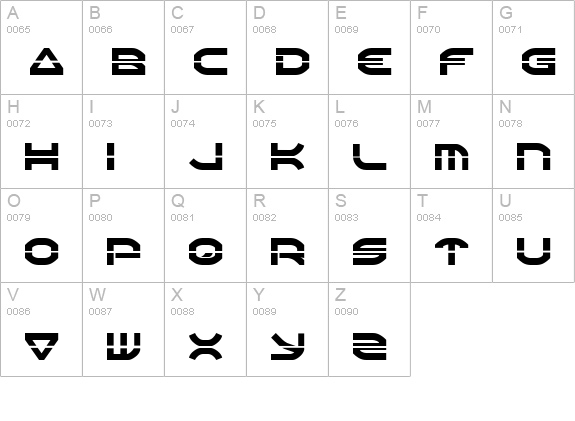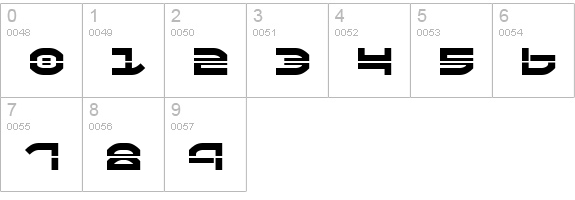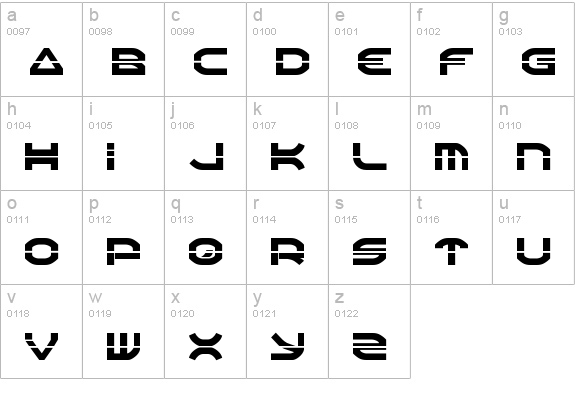
The Oberon Laser font is a sleek and modern typeface designed to make a bold statement in your projects. With its sharp lines and futuristic aesthetic, this font exudes a sense of sophistication and precision. Whether you're designing a high-tech website, a cutting-edge logo, or a sleek marketing campaign, Oberon Laser is sure to elevate your work to the next level. What's even better is that Oberon Laser is available for free download at FontsMarket.com. This means you can easily access this stunning font and incorporate it into your designs without any cost. Don't miss out on the opportunity to add Oberon Laser to your font collection and bring a touch of contemporary flair to your creative projects. Download it now and let your designs shine with Oberon Laser!